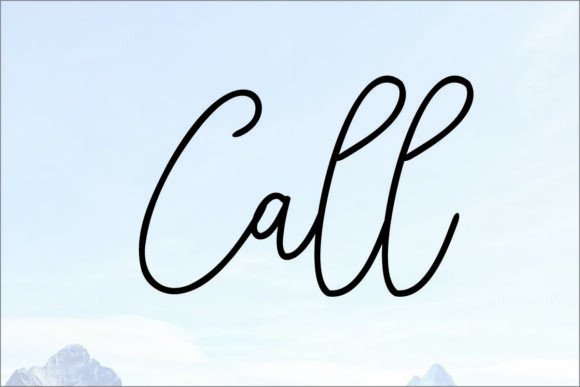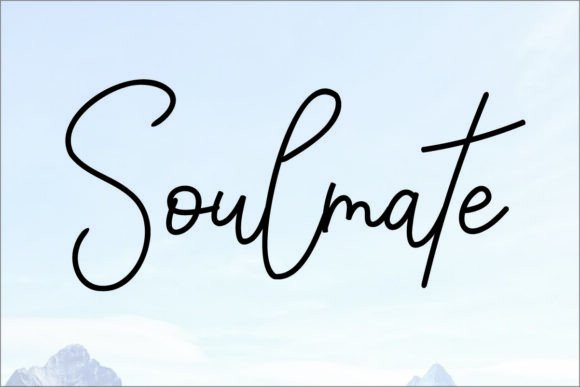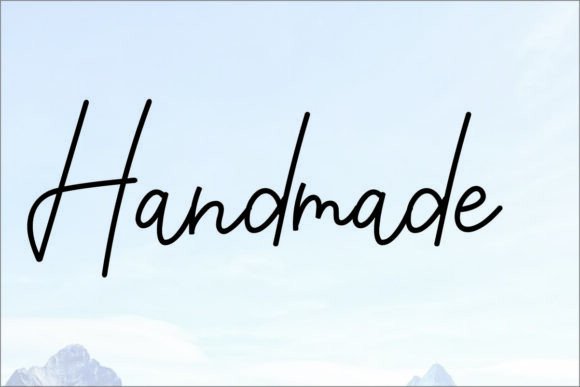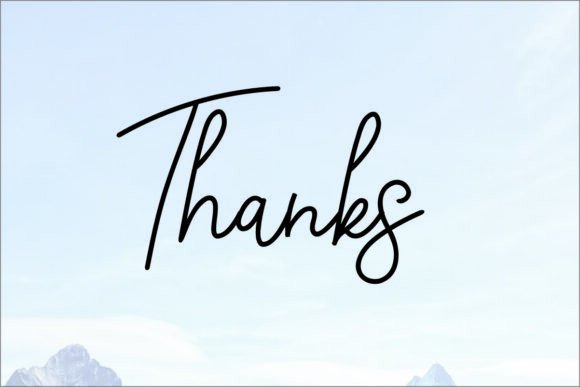
Introducing Dial Font: A Timeless Handwritten Masterpiece
In the world of typography, a good font can make all the difference in creating a lasting impression. For designers and crafters looking for a unique and beautiful touch, look no further than Dial Font. This lovely and timeless handwritten font is the perfect choice for creating eye-catching logos, branding, and quotes that will leave a lasting impact.
The Unique Charm of Dial Font
What sets Dial Font apart from other fonts is its distinctive and elegant handwritten style. Every letter has a unique and beautiful touch, which will make your design come alive! The font’s charm lies in its imperfections, giving it a personal and human feel that is hard to replicate with digital fonts. Whether you’re looking to create a logo, branding materials, or social media graphics, Dial Font is sure to add a touch of sophistication and elegance.
Dial Font is a versatile font that is perfect for a wide range of design applications. For designers, it’s an excellent choice for creating:
• Eye-catching logos that will help your brand stand out
• Branding materials, such as business cards, letterheads, and brochures
• Social media graphics, including Facebook posts, Instagram stories, and Twitter headers
For crafters, Dial Font is ideal for:
• Creating handmade cards and invitations
• Designing personalized gifts, such as mugs, t-shirts, and tote bags
• Adding a personal touch to scrapbooking and journaling projects
Why Choose Dial Font?
So, why choose Dial Font over other fonts? Here are just a few reasons:
• Unique and distinctive style: Dial Font has a one-of-a-kind look that will set your design apart from the rest.
• Elegant and sophisticated: The font’s elegant and refined style makes it perfect for high-end branding and design applications.
• Easy to read: Despite its ornate style, Dial Font is surprisingly easy to read, making it perfect for body text and quotes.
• Versatile: Dial Font can be used for a wide range of design applications, from logos and branding to social media graphics and craft projects.
Tips for Using Dial Font
To get the most out of Dial Font, here are a few tips:
• Use it sparingly: Dial Font is a statement font, so use it sparingly to make a maximum impact.
• Pair it with a sans-serif font: Pairing Dial Font with a sans-serif font will create a beautiful contrast and add visual interest to your design.
• Experiment with colors and textures: Dial Font looks stunning in a variety of colors and textures, so don’t be afraid to experiment and find the perfect combination for your design.
In conclusion, Dial Font is a timeless handwritten font that is perfect for designers and crafters looking to add a touch of elegance and sophistication to their designs. With its unique and beautiful touch, Dial Font is sure to make your design come alive! Whether you’re creating logos, branding materials, or social media graphics, Dial Font is an excellent choice. So why wait? Download Dial Font today and start creating stunning designs that will leave a lasting impression.